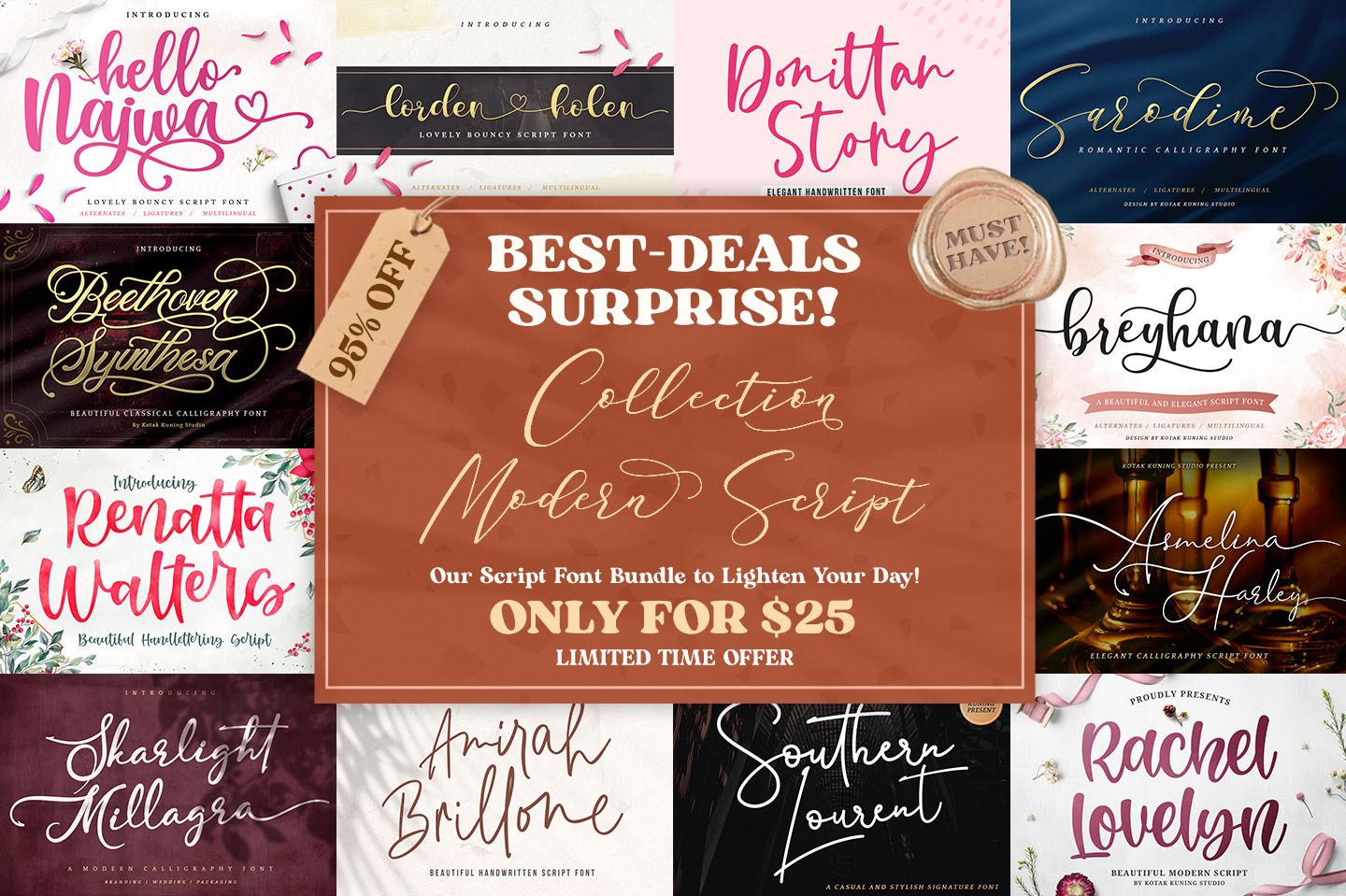
Are you ready for a new bundle of absolutely gorgeous modern scripts? Well, Collection Modern Script Font Bundle is READY!
This bundle is perfect for many different projects such as logos & branding, invitation, stationery, wedding designs, social media posts, advertisements, product packaging, product designs, label, photography, watermark, special events or anything.
FONTS INCLUDED:
- Rachel Lovelyn https://crmrkt.com/NzEMJX
- Renatta Walters https://crmrkt.com/0rl8ky
- Amirah Brillone https://crmrkt.com/ROEMG5
- Donittan Story https://crmrkt.com/qvd2zp
- Skarlight Millagra https://crmrkt.com/vOdeQQ
- Hello Najwa https://crmrkt.com/1qvE9D
- Breyhana https://crmrkt.com/z0dvlM
- Lambresia https://crmrkt.com/BlEbPy
- Lorden Holen https://crmrkt.com/WREM4y
- Sugar Charm https://crmrkt.com/24Ebm2
- Asmelina Harley https://crmrkt.com/J0EMlQ
- Ardelio https://crmrkt.com/9346Ql
- Melankolis https://crmrkt.com/yGDGdQ
- Beethoven Syinthesa https://crmrkt.com/pqdxva
- Sarodime https://crmrkt.com/OBEMwB
- Marmia https://crmrkt.com/7oEb57
- Metalurdo Calligraphy https://crmrkt.com/jXm743
- Southern Lourent Signature https://crmrkt.com/KREMlj
- Ortisan Signature https://crmrkt.com/x7dRMm
- Langit Merah Script https://crmrkt.com/24Eb7a
- Qiara Tosfa https://crmrkt.com/QJEMeQ
- Bro Rintto https://crmrkt.com/eomB6y